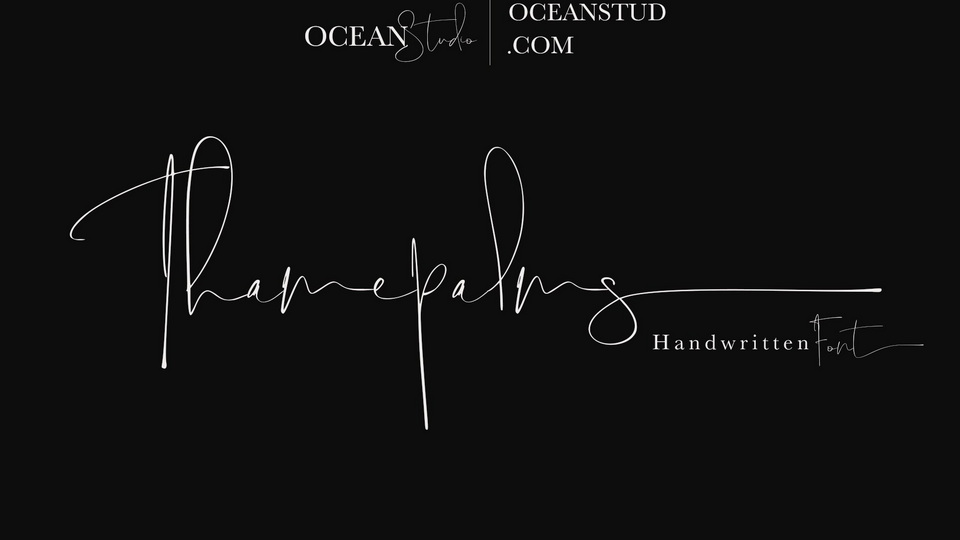
Download Thamepalms font, a pure hand strokes typeface that are inspired by natural handwriting. With an elegant flow Thamepalms emphasizes an authentic writing.